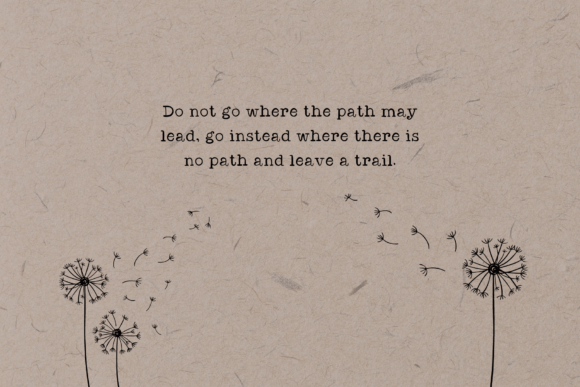
Silly Typewriter Font
Silly is a beautifully crafted, modern handwritten font with a unique and attractive touch. Perfect for adding a personal and stylish feel to any design project. With its smooth lines and casual flair, this font is sure to make your text stand out.